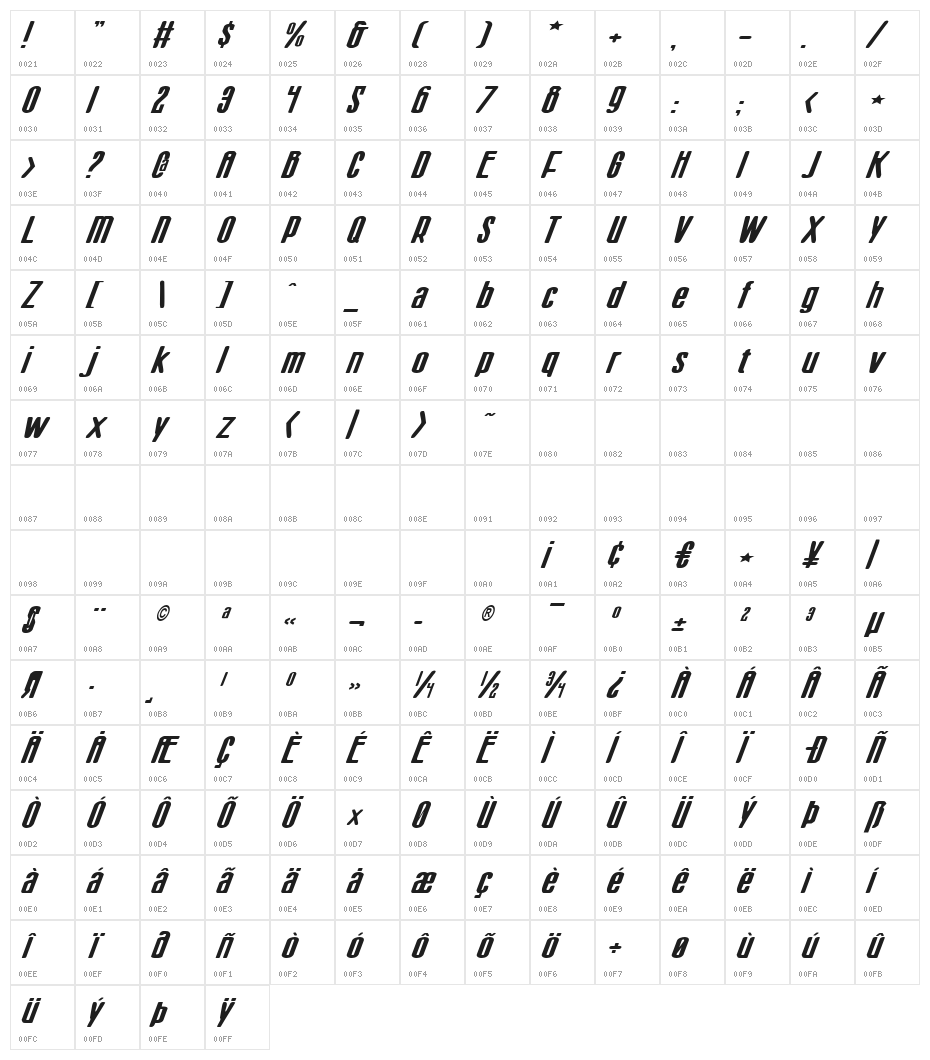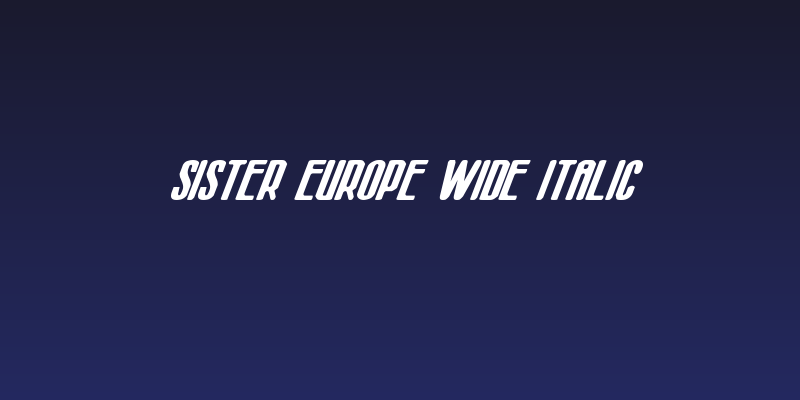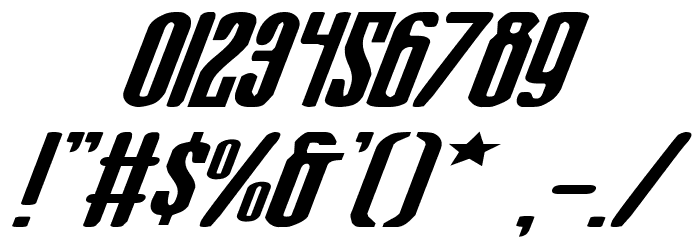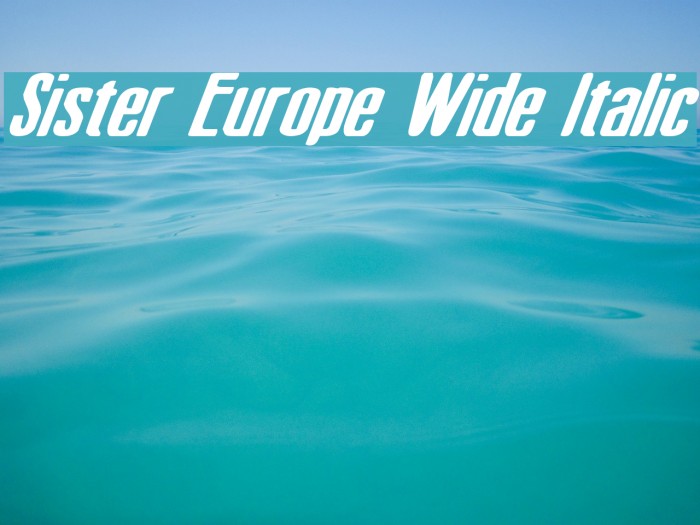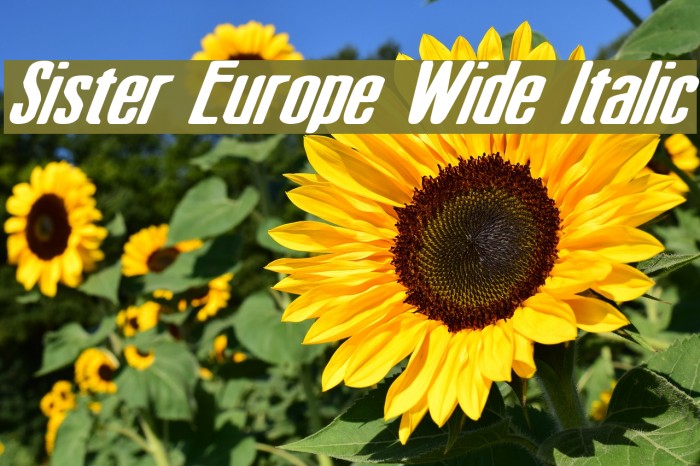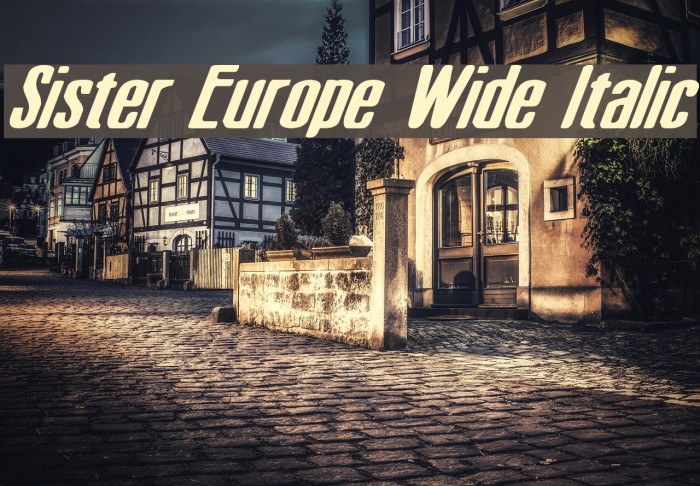
Sister Europe Wide Italic Font
Sister Europe Wide Italic Description
This font exhibits a bold and dynamic style with a distinctly italicized slant, giving it a sense of motion and energy. The characters are wide and have a slightly condensed appearance, which adds to their impactful presence. The strokes are consistent in thickness, providing a uniform look across all characters. The uppercase letters are tall and commanding, while the lowercase letters maintain a similar width, ensuring readability. The numerals and special characters are designed to match the overall style, making them suitable for various applications. This font's modern and sleek design makes it ideal for projects that require a bold statement.
| Use Case | Headlines, Logos, Advertising |
| Proposed Projects | Ideal for branding, advertising, headlines, and any design needing a bold, modern touch. |